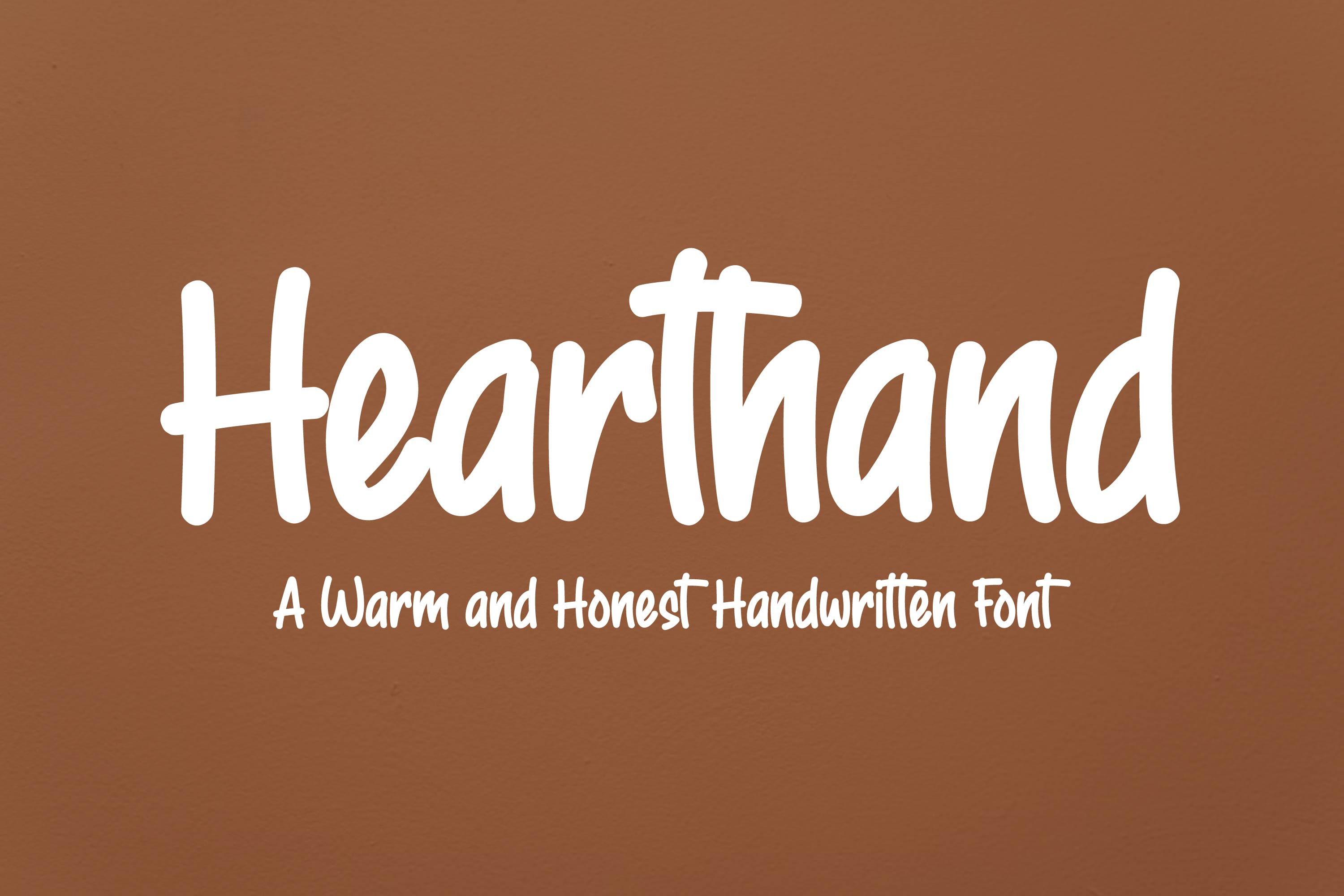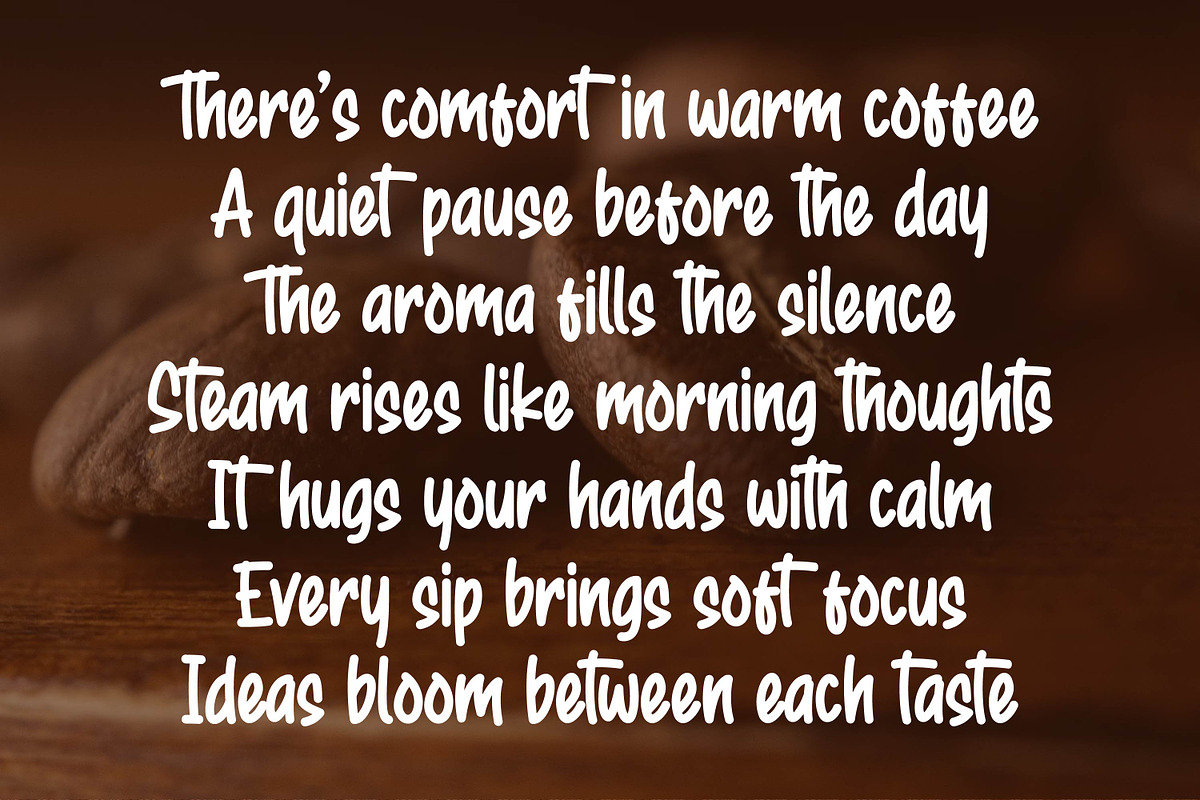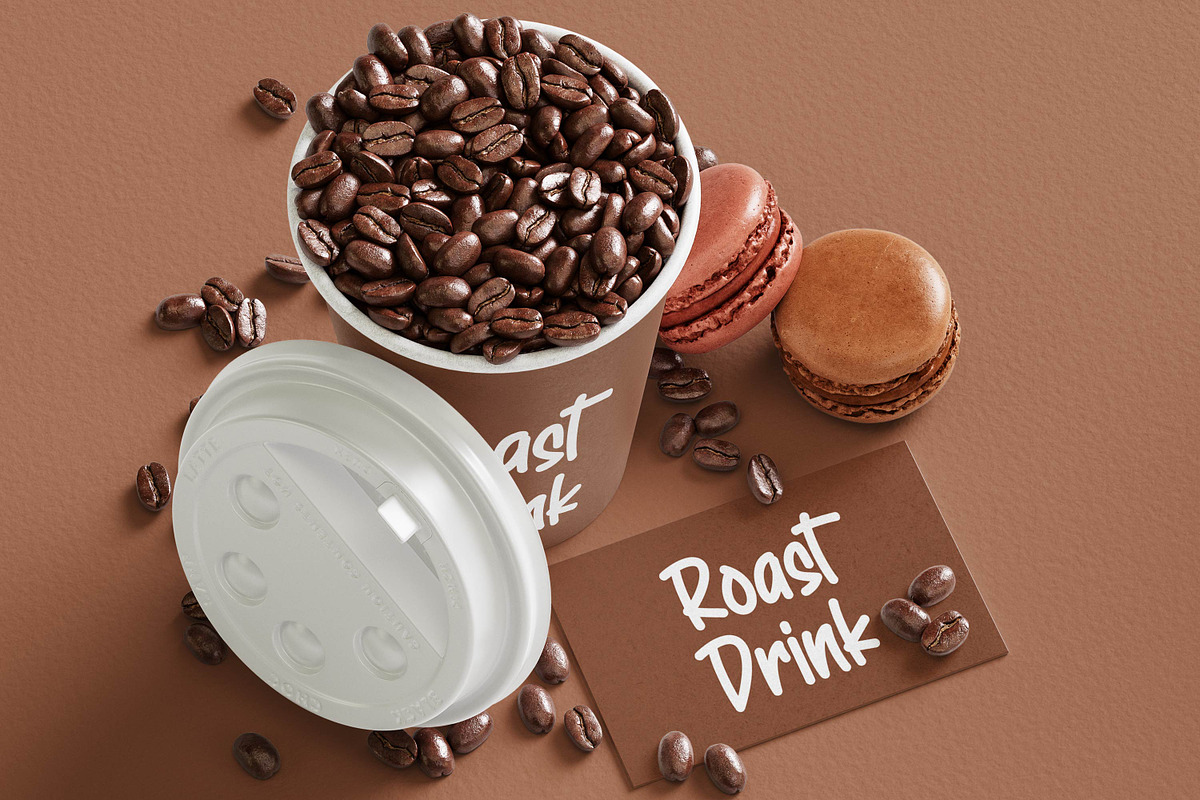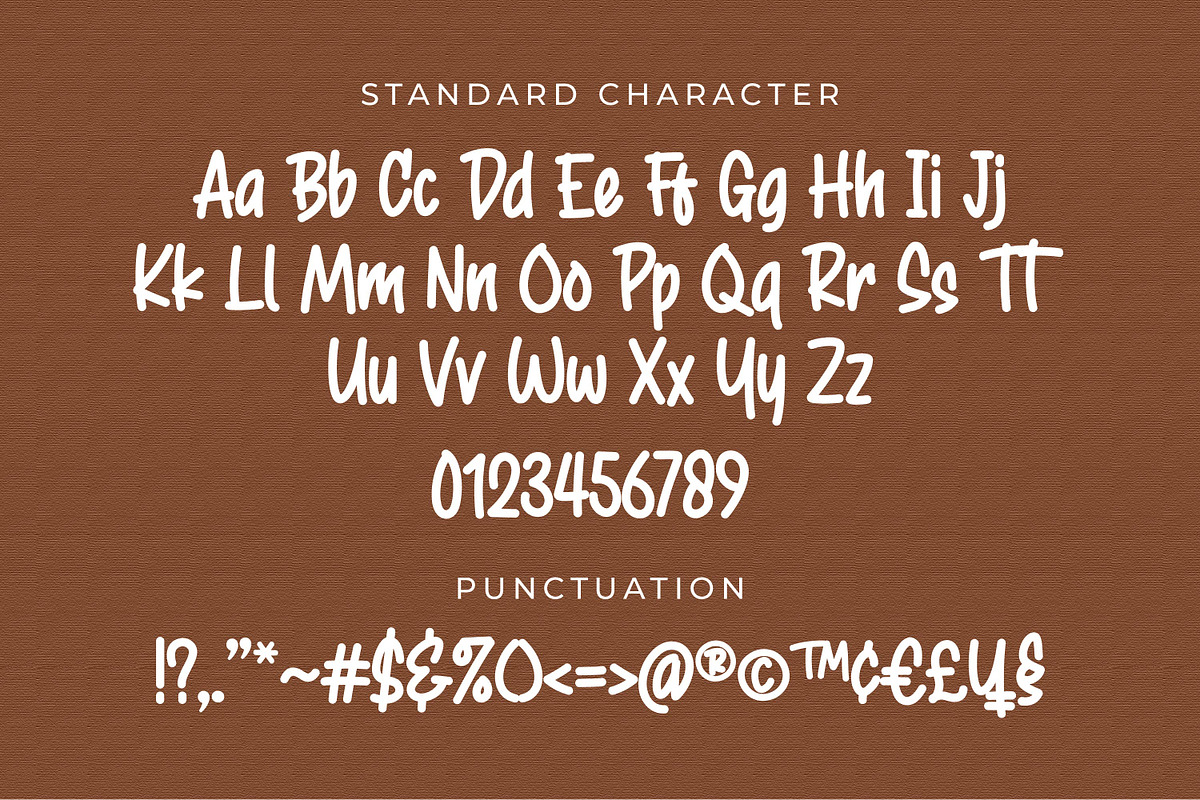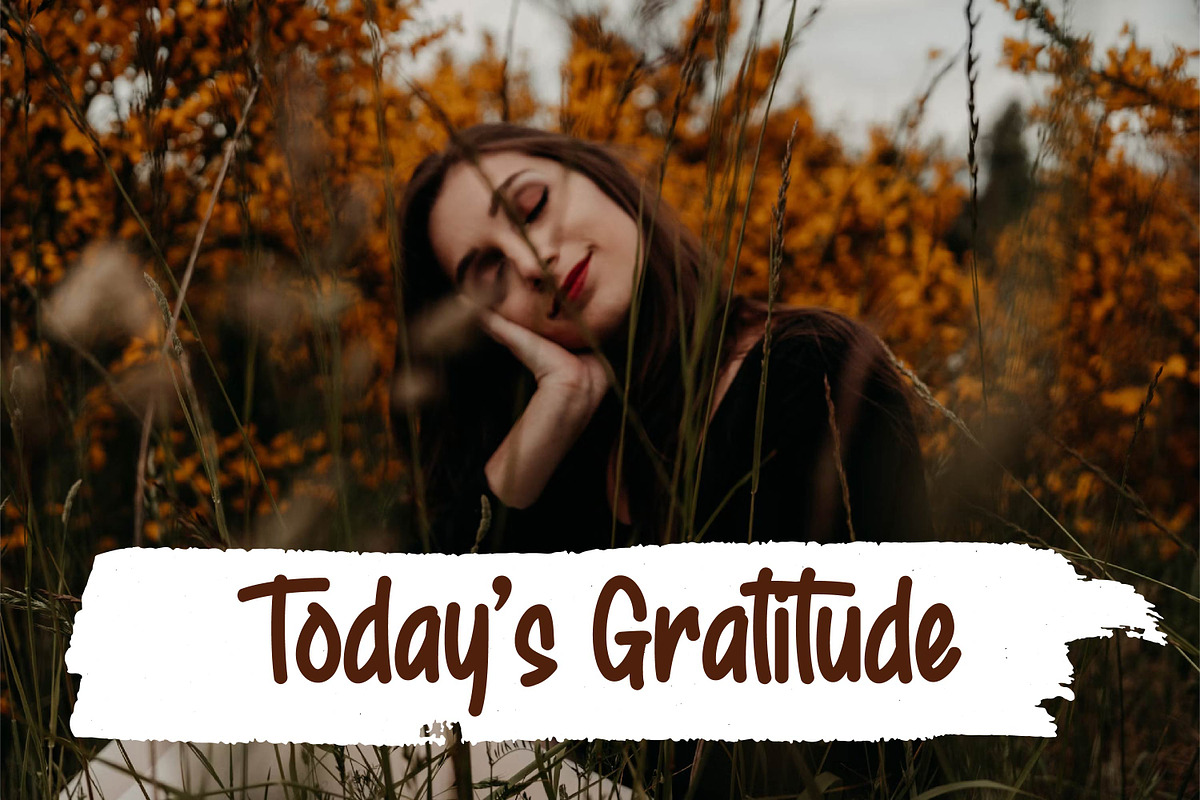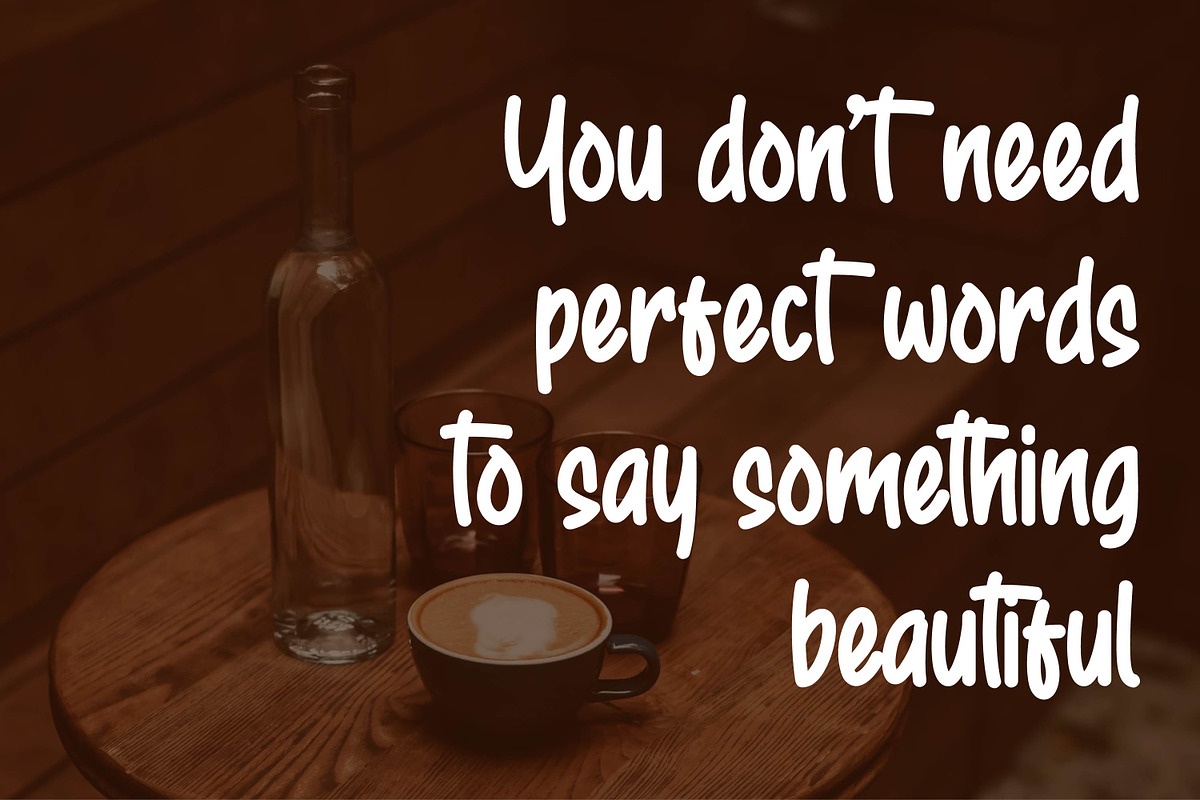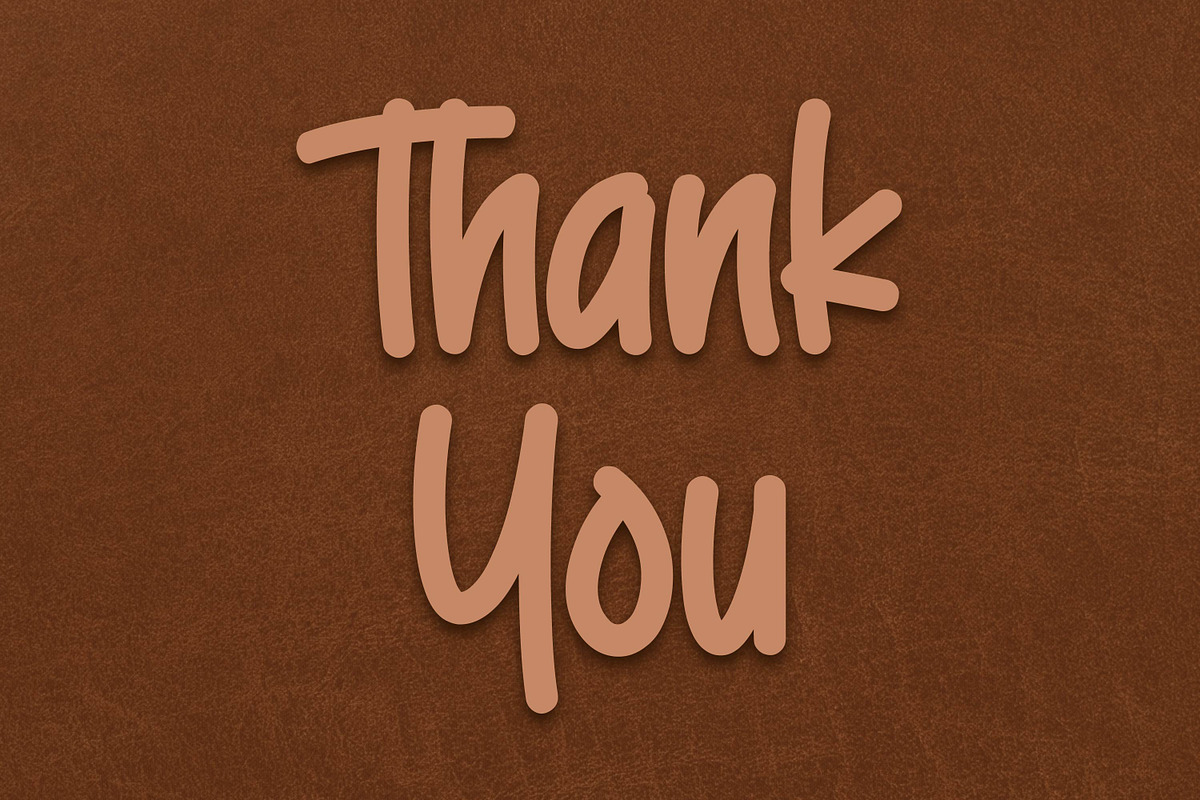
Hearthand - Casual Handwritten Font
Hearthand is a casual handwritten font that feels like a personal touch on every project. With its rounded edges and honest strokes, this font adds a warm and welcoming tone to any design. Ideal for quote posters, product packaging, handwritten notes, journaling, and organic branding — Hearthand brings genuine character and approachability wherever it’s used.